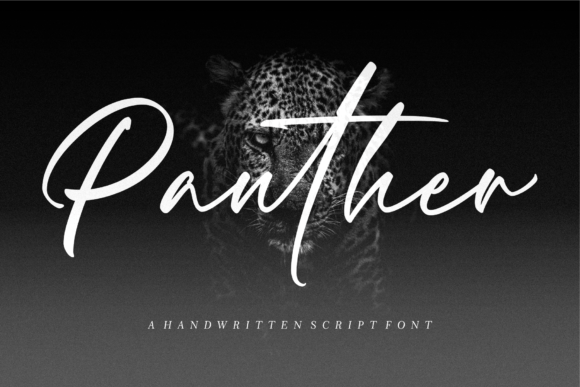
Behold Panther Font, a dazzling handwritten masterpiece that dances across the digital canvas with a captivating charm. Each letter, meticulously crafted with a few simple strokes, exudes a sense of effortless elegance and authenticity.
Immerse yourself in the world of Panther Font, where cool and stylish converge to create a visual symphony. Its free-flowing lines and graceful curves bring a touch of sophistication to your creative endeavors, making it the perfect choice for hand-crafted signature logos that leave a lasting impression.
Elevate your social media presence with Panther Font, crafting captivating posts that draw attention like magnets. Let your words dance with an artistic flair, engaging your audience and leaving them craving more.
But Panther Font's allure extends far beyond the realm of logos and social media. Unleash your creativity and explore its versatility in crafting badges, invitations, and other marketing materials that exude professionalism and individuality.
With Panther Font, you hold the key to creating a visual identity that resonates with your brand's essence. Its PUA encoding grants you effortless access to a treasure trove of glyphs and ligatures, empowering you to add intricate details and flourishes that elevate your designs.
Welcome to the world of Panther Font, where artistry and functionality intertwine to create a font that sparks imagination and ignites creativity. Download Panther Font today and unlock a world of possibilities.